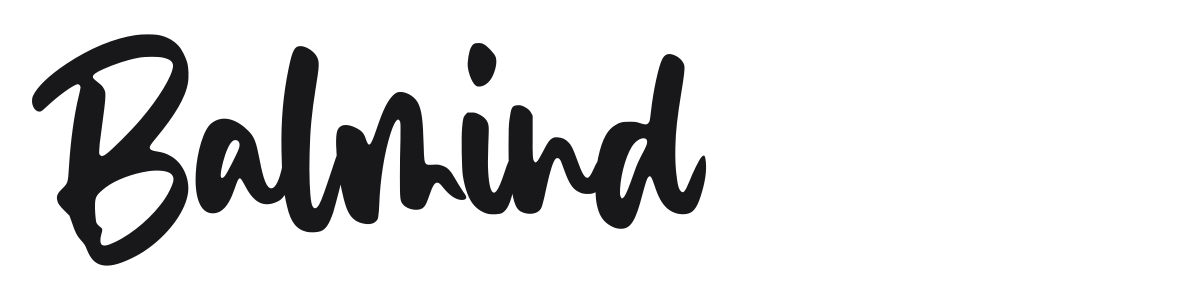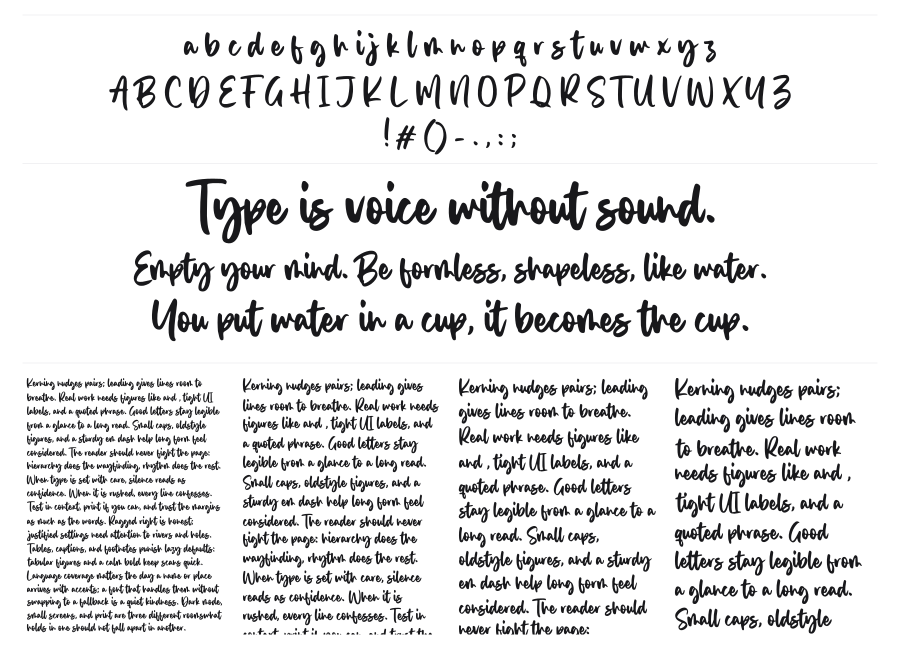
Balmind
by Letteralle Studios · Website
Balmind is a bold casual brush script with flowing connected strokes and a lively, bouncy rhythm. The generous stroke contrast and rounded terminals give it a handcrafted warmth that works well for branding, packaging, and social media graphics. It feels like it was written with real energy, not engineered to look that way.